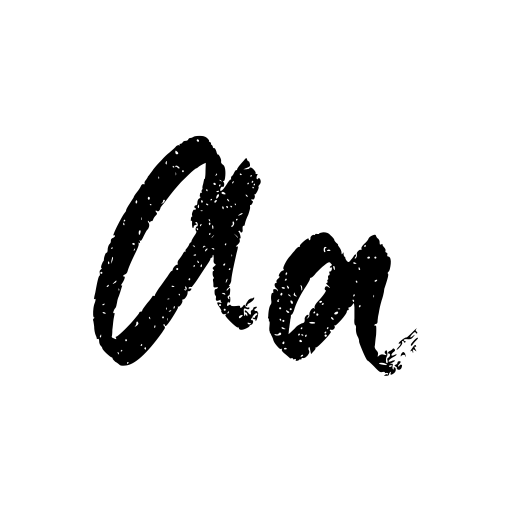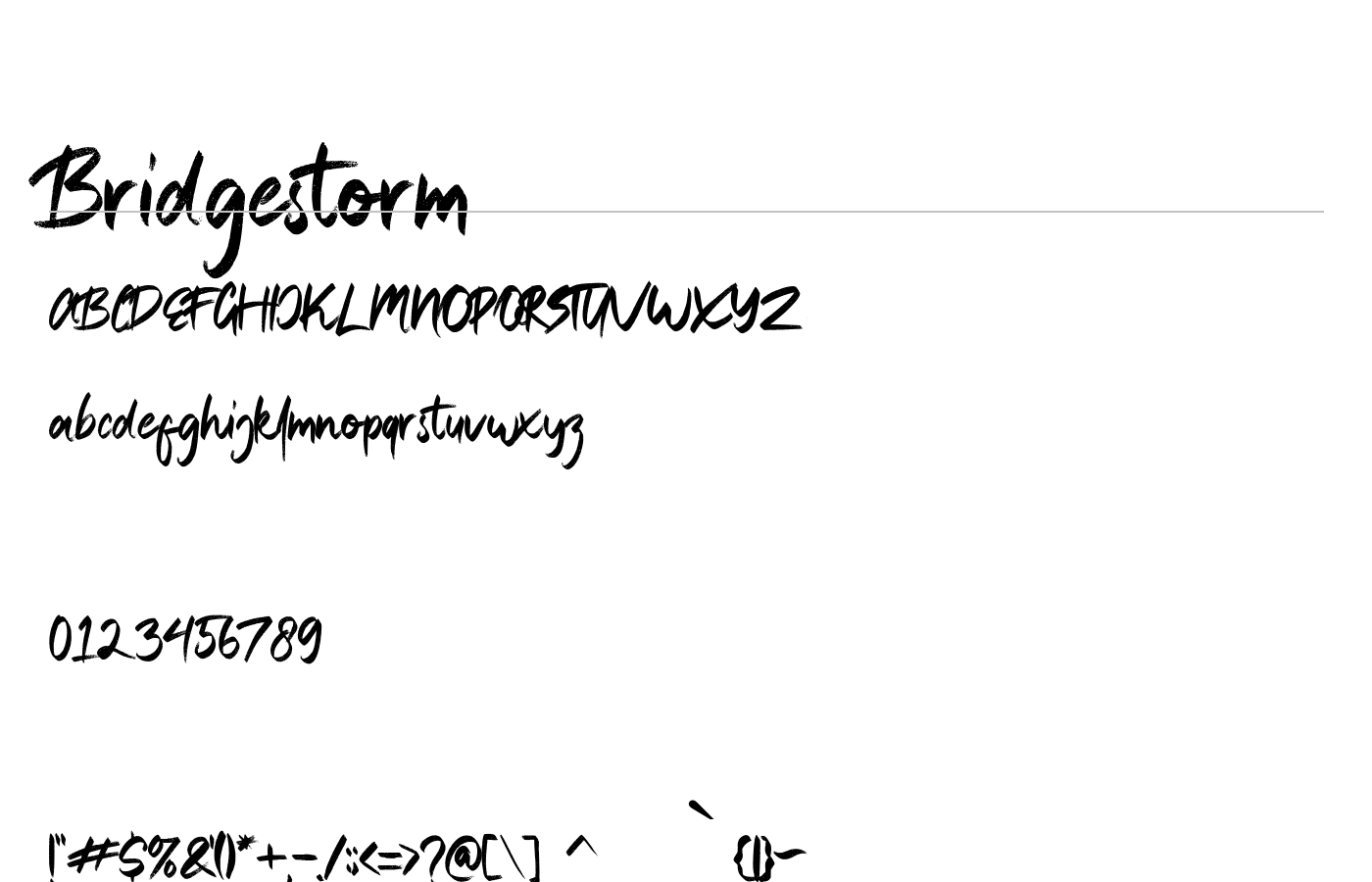
Bridgestorm is a bold, expressive handwritten script font with a textured, brush-like appearance that conveys creativity and energy. Its irregular strokes and lively letterforms give it a casual, artistic vibe, making it perfect for dynamic branding, posters, and informal design projects that want to feel personal and vibrant. This font works especially well for headlines and logos where a natural, handcrafted style adds strong visual impact.
| Font family | Bridgestorm Font |
| Designer | Moonstone Co |